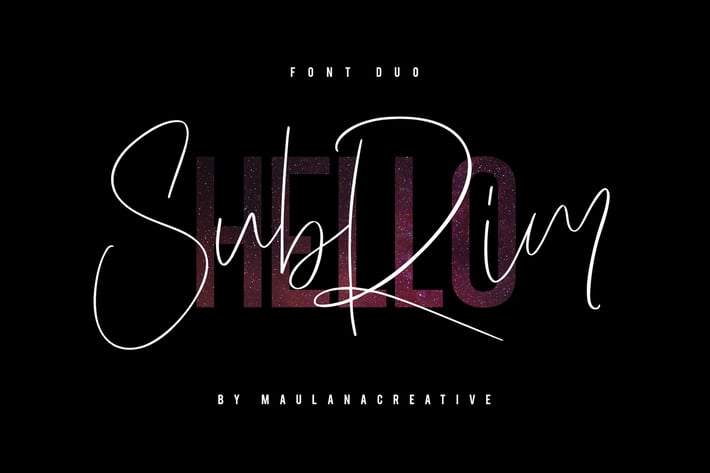
Hello Subrim Typeface
Give your designs an authentic handcrafted feel. "Hello Subrim" is perfectly suited to signature, stationery, logo, typography quotes, magazine or book cover, website header, clothing, branding, packaging design and more.